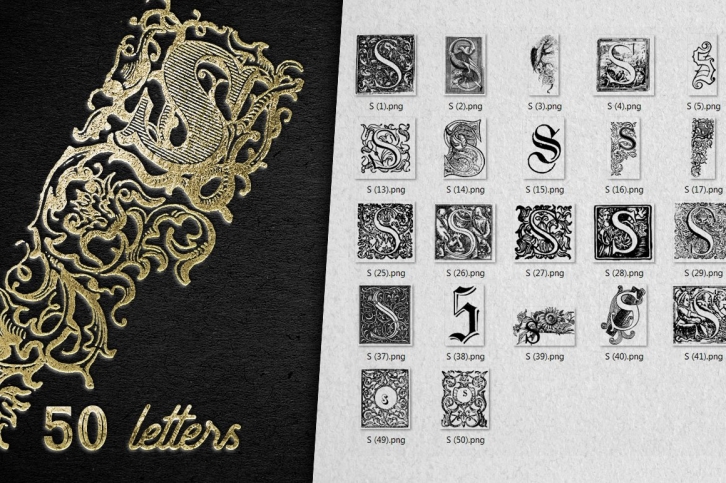
Look at this great set of 50 vintage S letters. Isolated PNG and vector EPS formats included.
Using this letters, you can create a variety of stylish designs, any texts you can start with expressive letter, create monogram and initials, decorate wedding postcard with initials of honeymooners, design family coat of arms, create a logo, create a poster for the interior and a lot of incredible things what my product will inspire you.